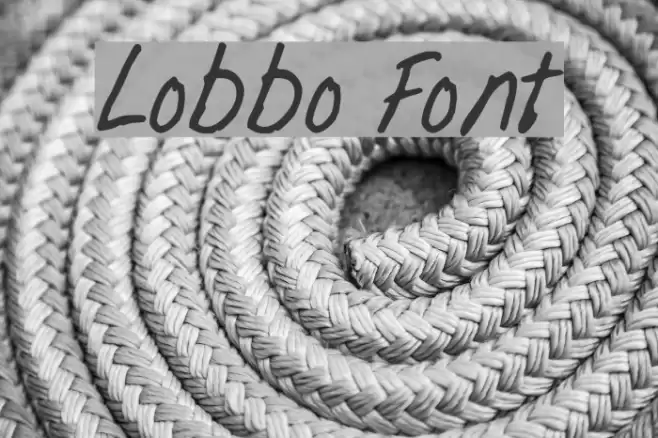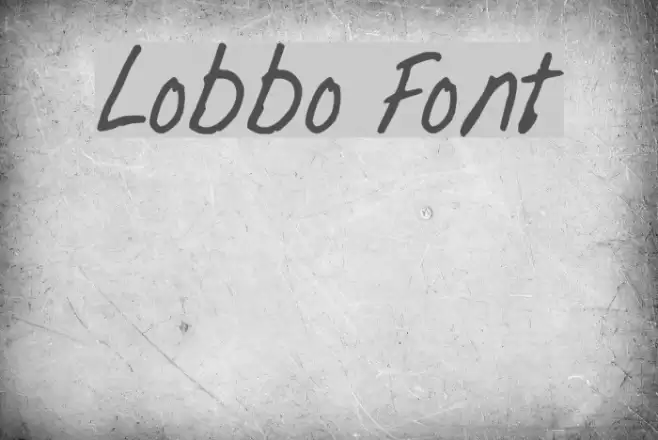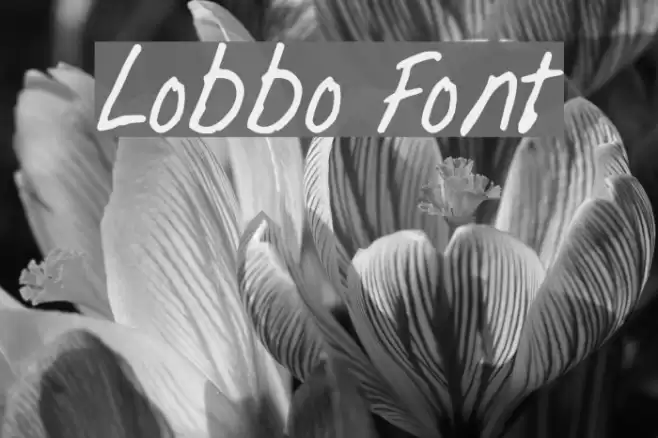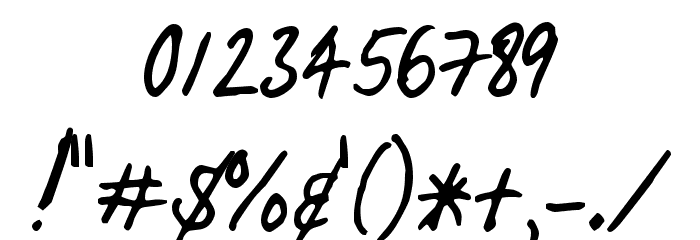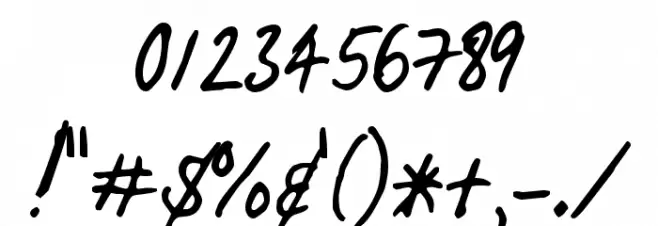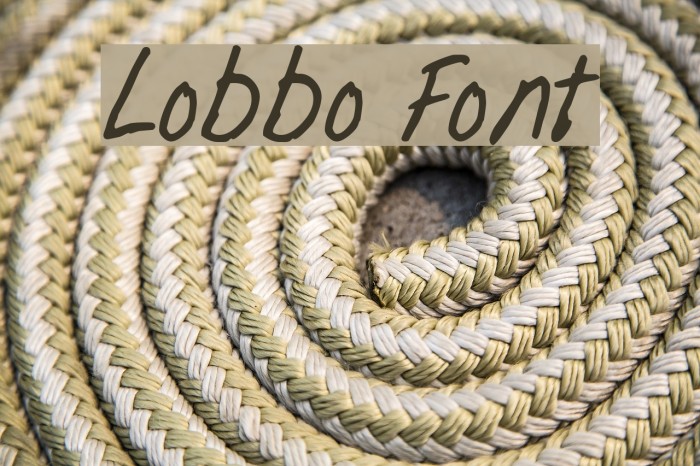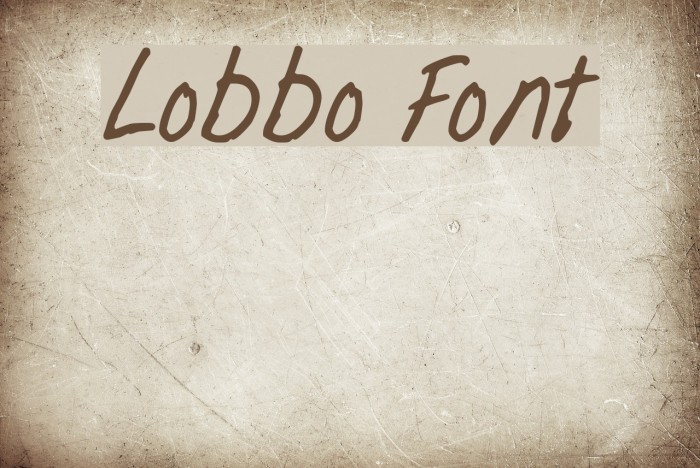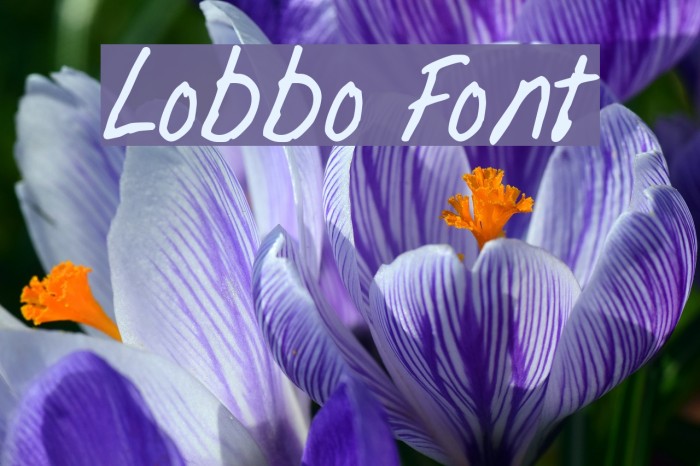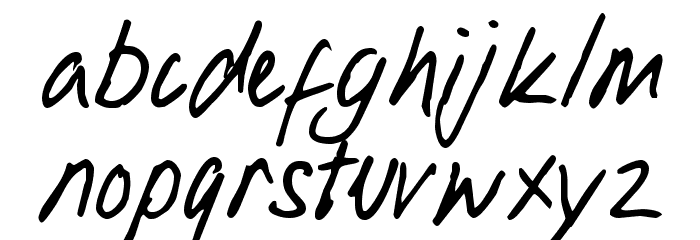
Lobbo Font
Lobbo Description
This font exudes a casual and energetic vibe, characterized by its handwritten style. The letters are slightly slanted, giving a dynamic and informal appearance. The strokes are uneven, mimicking the natural flow of handwriting, which adds a personal touch. The uppercase and lowercase letters maintain a consistent style, with some variations in stroke thickness that enhance its lively look. Numbers and special characters follow the same handwritten aesthetic, ensuring uniformity across all glyphs.
A lively, handwritten-style font with a casual and dynamic appearance from Uncategorized fonts.
- Proposed Projects: Ideal for personal branding, greeting cards, casual invitations, and creative projects that require a personal touch.
- Overall Style: Casual
- Use Case: Logos, Headlines, Informal Text